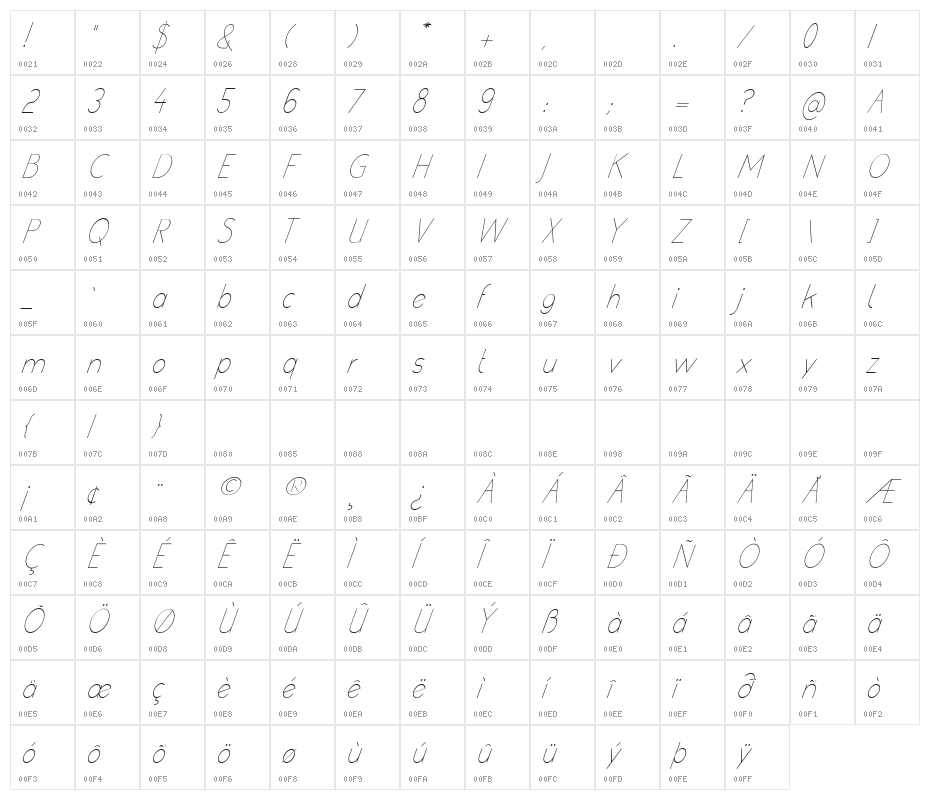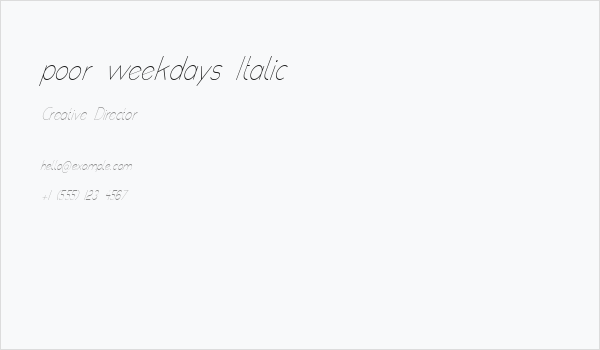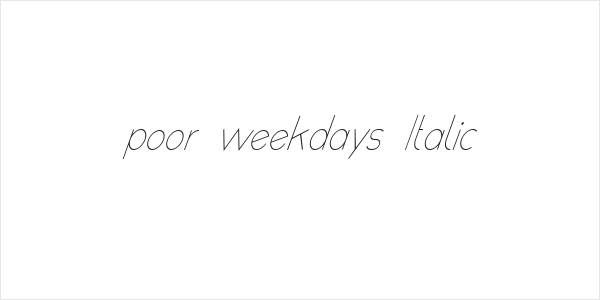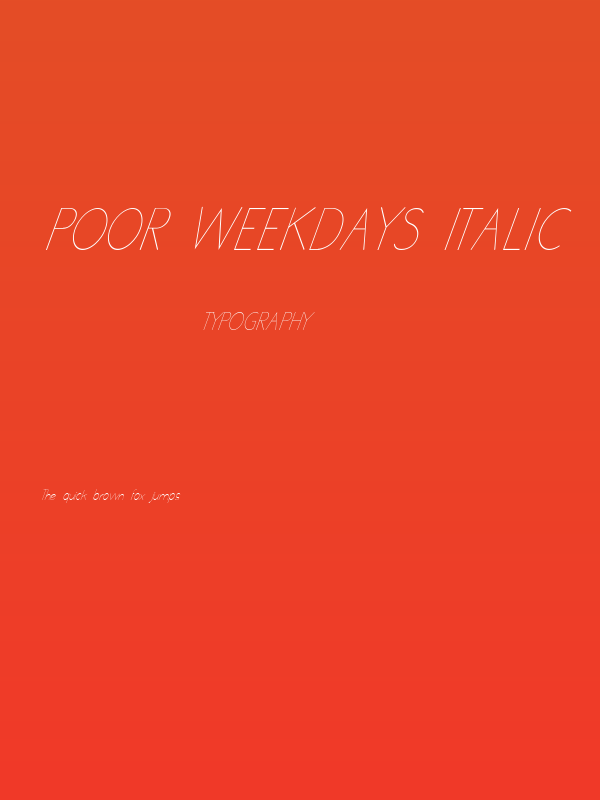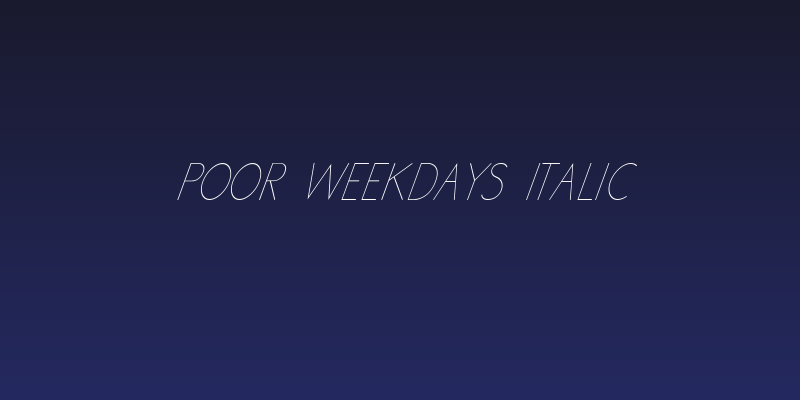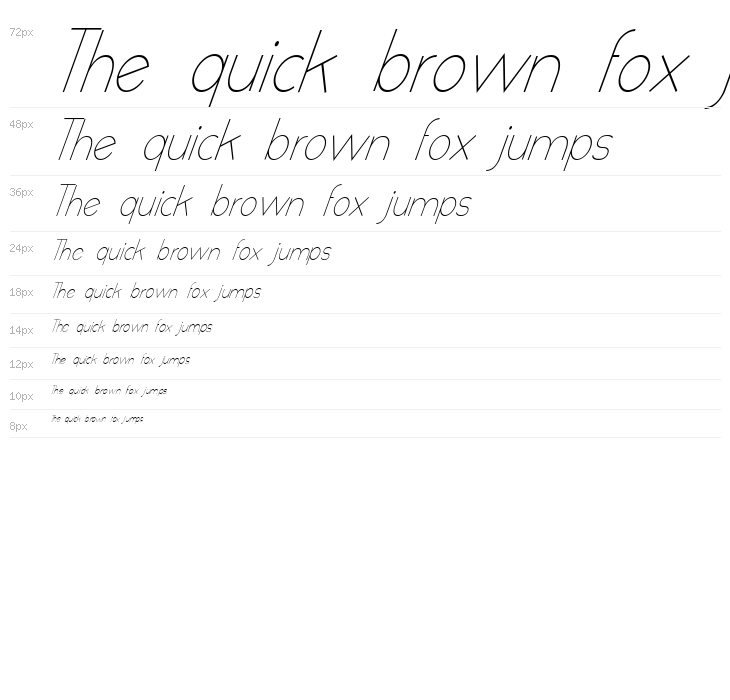
poor weekdays Italic Font
poor weekdays Italic Description
This font features a sleek, elegant design with a distinct italic slant, giving it a sense of movement and sophistication. The characters are thin and elongated, with a consistent stroke width that adds to its refined appearance. The uppercase letters are tall and narrow, while the lowercase letters maintain a smooth, flowing style. The numerals are clear and legible, matching the overall aesthetic. Special characters are well-integrated, maintaining the font's cohesive look. This typeface exudes a modern and stylish vibe, making it suitable for various creative applications.
| Proposed Projects | Ideal for fashion magazines, elegant invitations, branding for luxury products, and modern website headers. |